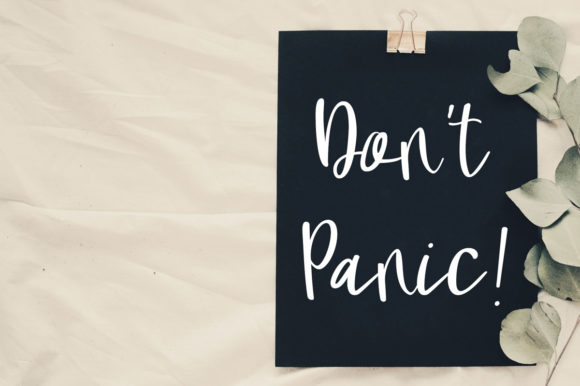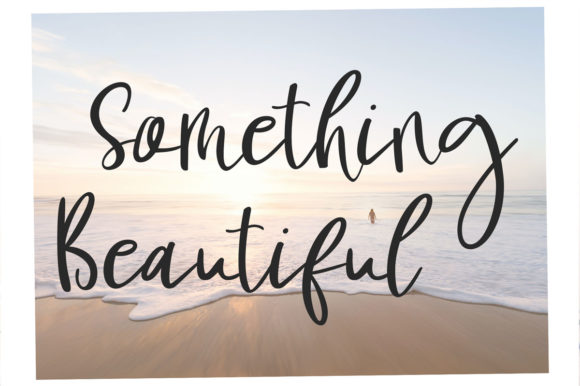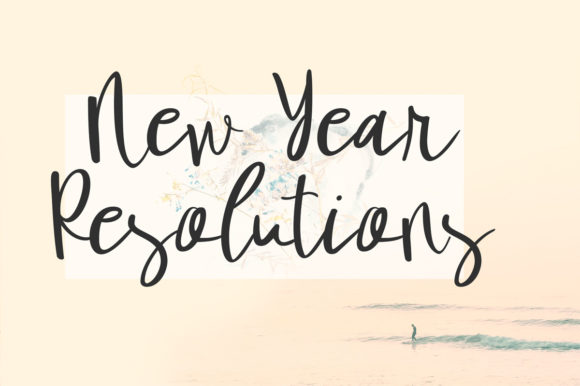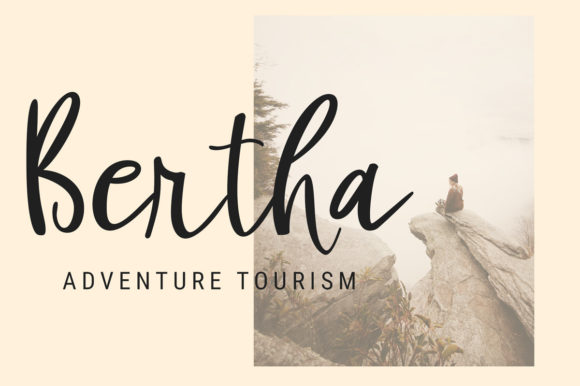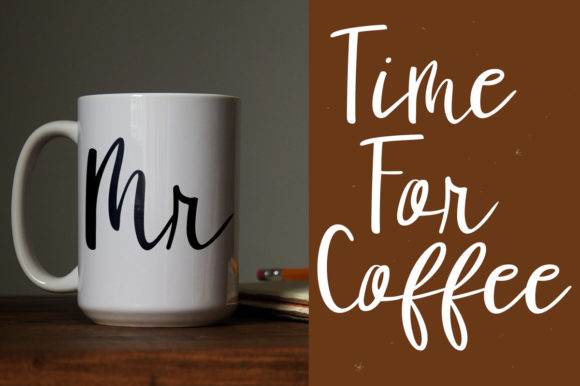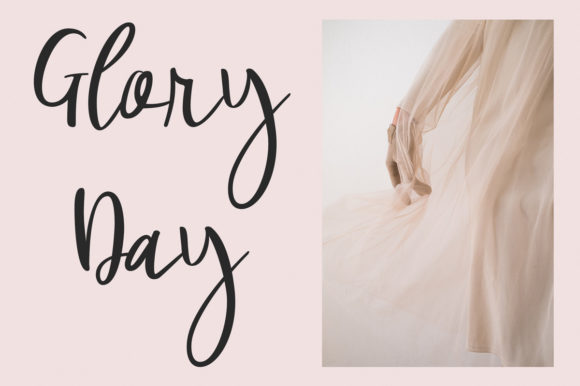
Unlock the Secrets of Your Most Creative Moments with the In My Dreams Font
Have you ever found yourself lost in a world of imagination, where ideas flow freely and creativity knows no bounds? That’s where the magic happens, and for many designers, it’s the starting point of a new project. For me, it was a late-night brainstorming session where I stumbled upon the perfect font to match my vision – the In My Dreams Font. This chic, whimsical script font is more than just a typography choice; it’s a statement piece that exudes confidence and versatility.
As a designer, you know how crucial it is to have the right tools at your disposal. The In My Dreams Font is a valuable addition to any project, offering stylish alternates and ligatures that can elevate your design to the next level. Whether you’re working on a logo, brochure, or social media campaign, this font is sure to make your vision shine.
In My Dreams Font Key Features
- Font Family: In My Dreams is a unique, hand-drawn script font designed to evoke a sense of elegance and sophistication.
- Size: The font is available in 4 different sizes, including Regular, Bold, Italic, and Bold Italic, catering to various design needs.
- Unique Characteristics: The font features beautiful, flowing connections between letters, making it perfect for creating a sense of movement and fluidity in designs.
Designer Review: “In My Dreams Font”
Overall, I think “In My Dreams Font” has some great qualities that make it a nice addition to any design project ✨. The font’s whimsical and dreamy feel makes it perfect for projects that need a touch of romance and fantasy. The font’s curves and flourishes add a level of sophistication and elegance that’s hard to find in other fonts.
The font’s versatility is another strength. It works well in a variety of contexts, from invitations and greeting cards to branding and advertising. The font’s bold and playful nature makes it a great choice for projects that need to stand out and grab attention.
- Whimsical and dreamy feel ✨
- Sophisticated and elegant curves and flourishes ✨
- High level of versatility ✨
- Works well in a variety of contexts
- May be difficult to read in smaller font sizes ⚠️
- May not be suitable for projects that require a more serious or professional tone ⚠️
- May be too playful or attention-seeking for some projects ⚠️
Overall, I think “In My Dreams Font” is a great choice for designers who want to add a touch of whimsy and romance to their projects. However, it’s not a one-size-fits-all solution, and designers should carefully consider the context and tone of their project before using this font.
- Use “In My Dreams Font” for titles, headings, and other emphasis elements.
- Combine “In My Dreams Font” with other fonts to create a unique and eye-catching design.
Alternatives to In My Dreams Font
Cream Soda Font is a distressed, handwritten font ideal for creating a nostalgic or vintage feel. It is suitable for use in branding, packaging, and advertising where a unique, eye-catching look is required. In comparison to In My Dreams Font, Cream Soda Font has a more distressed and worn appearance, making it perfect for projects that require a retro aesthetic.
Alex Brush Font is a modern, brush script font that can be used for a variety of applications, including invitations, posters, and social media graphics. It has a more polished and elegant look compared to In My Dreams Font, making it suitable for projects that require a touch of sophistication. Alex Brush Font is ideal for use in branding, advertising, and editorial design.
Q: Are there any font variations or styles available for the In My Dreams Font?